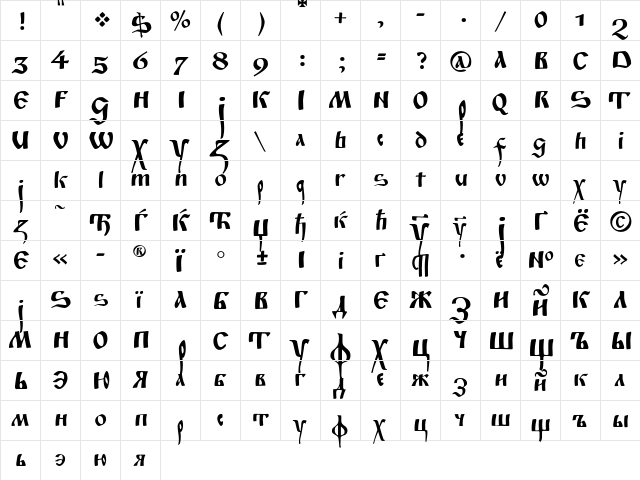
Fita_Poluustav Regular Font Preview
Fita_Poluustav Regular
Design Context for Fita_Poluustav Typeface
Fita_Poluustav takes a measured approach to typography — its balanced proportions and neutral character make it a reliable workhorse for both digital and print work.